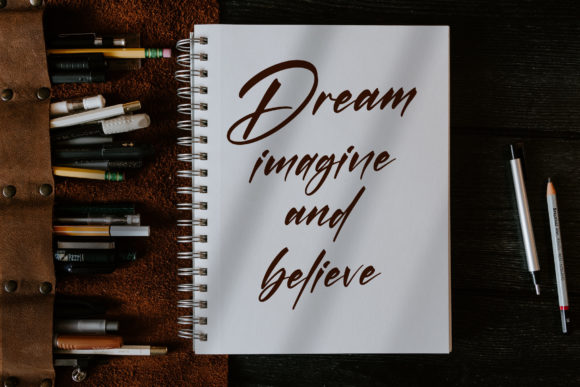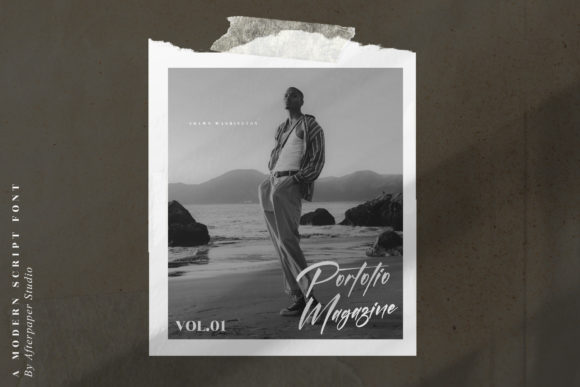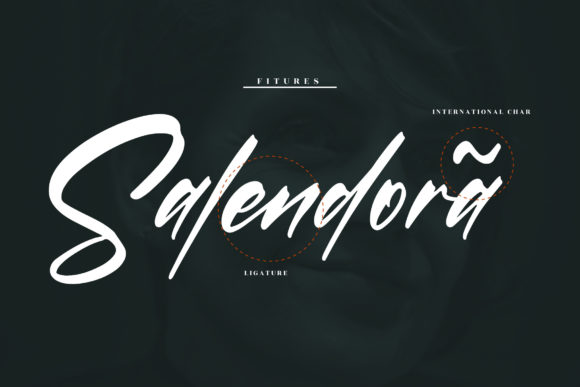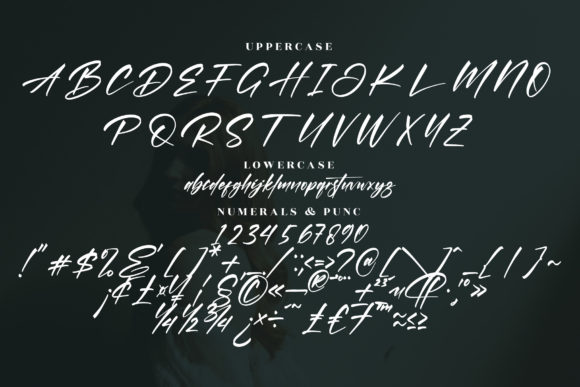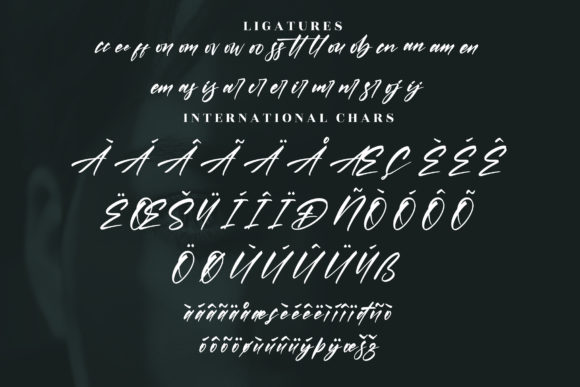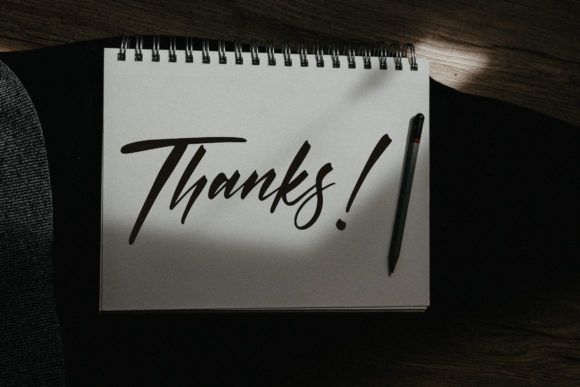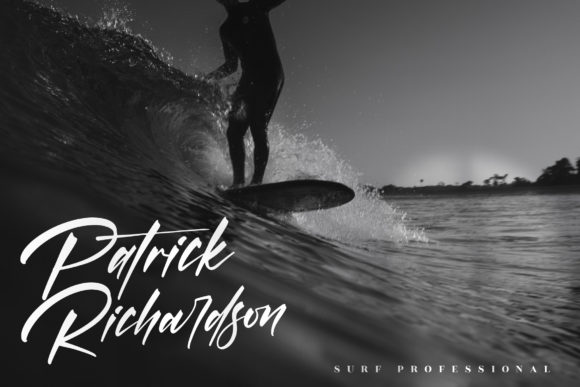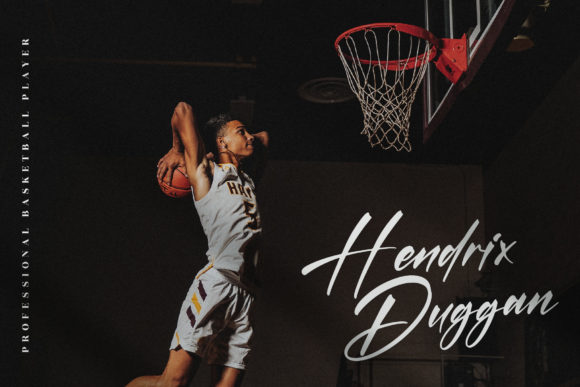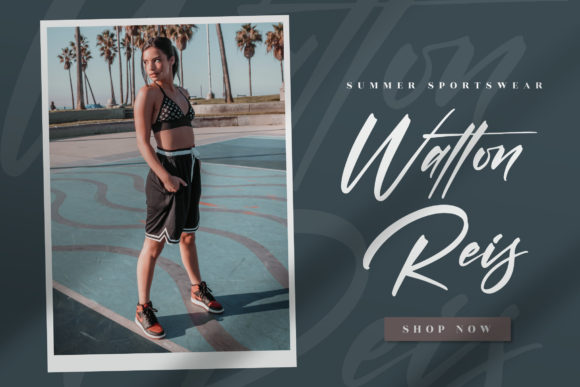
Portillo Bryant Font
About Portillo Bryant Font
Portillo Bryant is a lovely and delicate script font that exudes elegance and class. It is PUA encoded which means you can access all of the amazing glyphs and ligatures with ease!